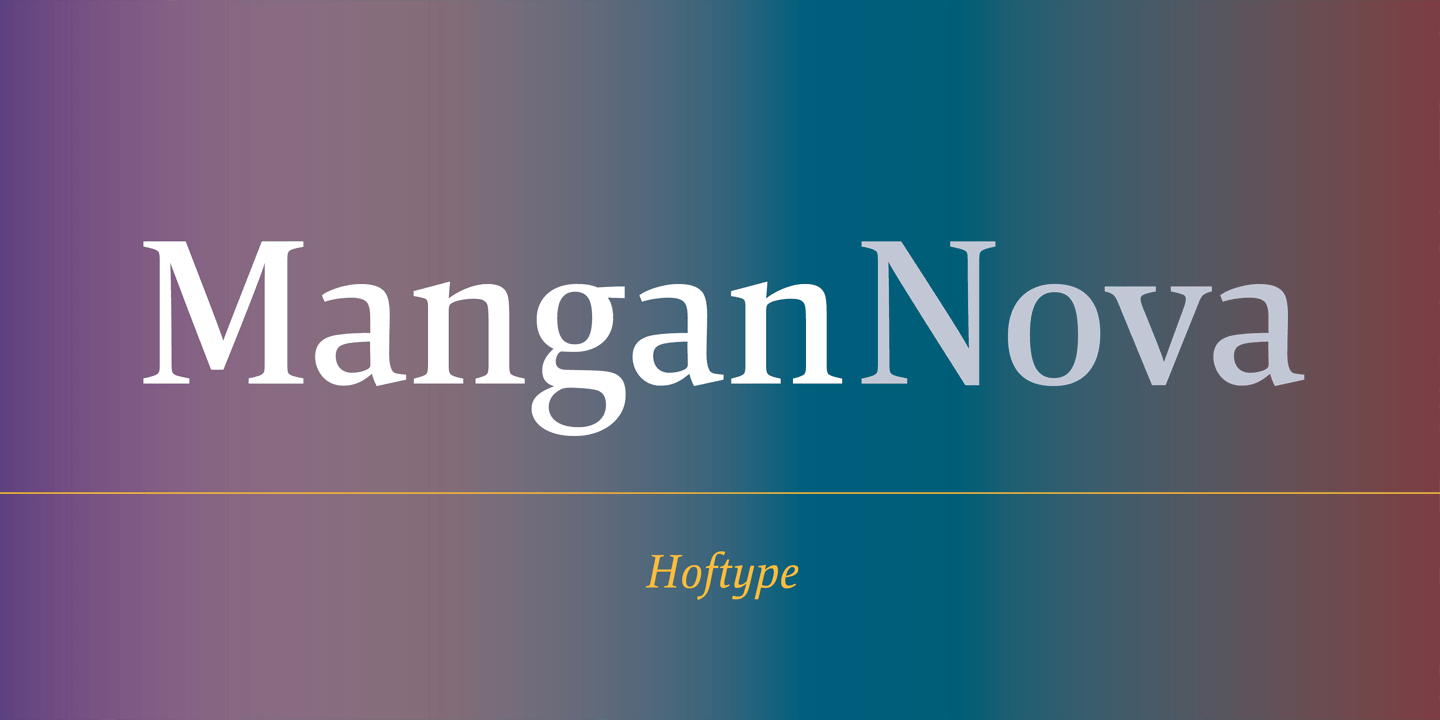
Designed by Dieter Hofrichter, Mangan Nova is a serif font family. This typeface has fourteen styles and was published by Hoftype.
Mangan Nova is the semi-condensed version of Mangan . Designed for strong headlines but with slender and economical proportions, it fosters space saving text applications while permitting very pleasant reading.
Mangan Nova, as does also Mangan, comprises 14 styles and is well suited for ambitious typography. It comes in OpenType format with extended language support. All weights contain small caps, ordinals, ligatures, proportional lining figures, tabular lining figures, proportional old style figures, lining old style figures, matching currency symbols, fraction- and scientific numerals.